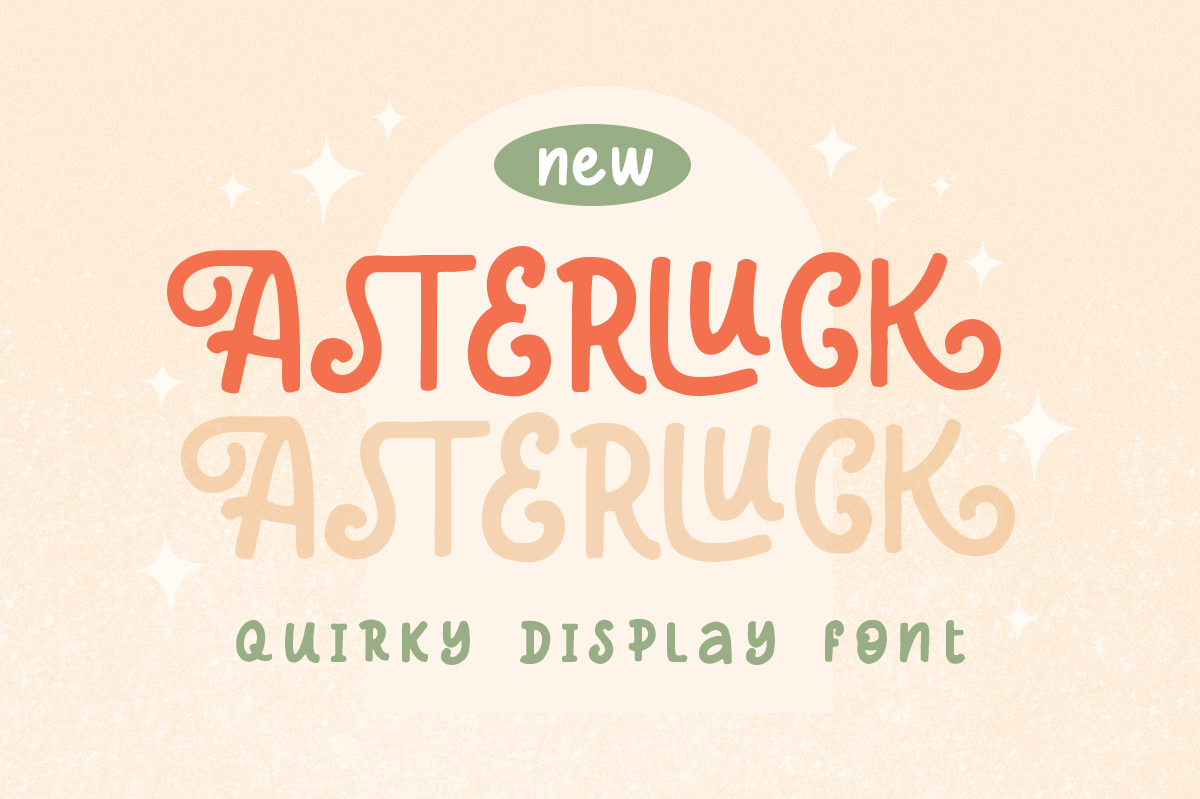
Asterluck Font
The Asterluck Font is perfect for fortune-telling services, mystical gaming platforms, lucky charm packaging, astrology websites, cosmic jewelry branding, magical entertainment venues, spiritual wellness centers, and celestial event promotions. This enchanting typeface brings mystical fortune and cosmic luck to any design project requiring magical charm and celestial blessing.
What makes the Asterluck Font so exciting is its unique ability to combine celestial wonder with the mystical energy of good fortune through letterforms that seem blessed by shooting stars and cosmic serendipity. The font features graceful characters with subtle star-like flourishes and lucky charm details that evoke the magical moment when wishes upon stars come true, creating an immediate sense of hope and positive destiny.
The Asterluck Font family includes light, regular, bold, and ornamental variations, along with mystical symbols, lucky charms, celestial ornaments, and fortune-themed decorative elements, providing designers with comprehensive tools for creating magical brand experiences and destiny-blessed design communications.
Whether you're developing branding for astrology services, creating materials for spiritual guidance platforms, or designing graphics for luck-themed entertainment, this font delivers enchanting authenticity. The carefully crafted letterforms maintain excellent readability while radiating the positive energy and cosmic blessing that resonates with audiences seeking fortune, guidance, and spiritual connection.
Spiritual professionals appreciate the font's respectful approach to mystical traditions while avoiding clichéd stereotypes. The celestial design elements create genuine connections with cosmic energy while helping brands establish trust with audiences who value spiritual guidance, positive manifestation, and the belief in beneficial cosmic influences.
The Asterluck Font excels in applications where spiritual authenticity and positive energy are essential, from professional astrology consultations to mystical entertainment experiences. The font's fortunate presence enhances brand credibility while maintaining clear communication across various spiritual and mystical contexts.